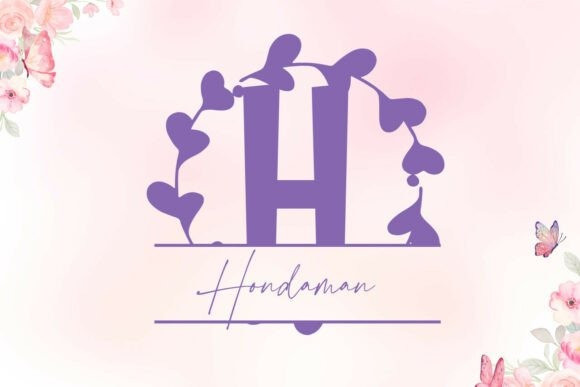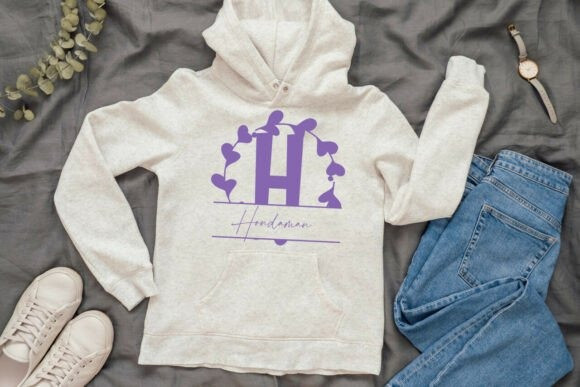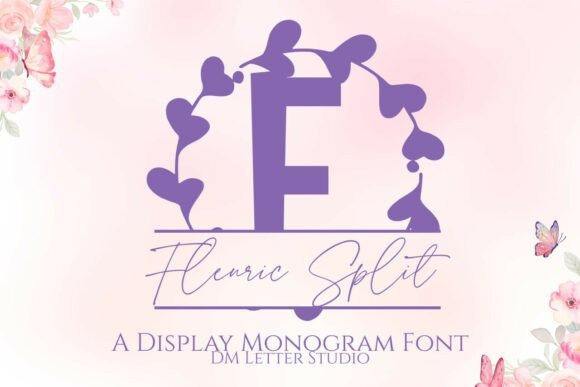
Fleuric Split Monogram Font
Fleuric Split Monogram Font is an enchanting display monogram font designed to add a romantic, handcrafted touch to your personalized creations.
The typeface’s key feature is the bold, solid, split-style uppercase letter which is perfectly bisected by a stylish line, allowing for personalized text, names, or dates to be inserted directly into the design. The surrounding heart-shaped floral wreath is integrated into the letter’s design, lending an irresistible, feminine, and highly decorative aesthetic.
This font is a dream for crafters and designers specializing in personalization. Its dual-style format—the split monogram for a focal point and the elegant script for complementing text—makes it perfect for creating custom decals, embroidered designs, wedding decor, personalized gifts, stylish tumblers, and charming nursery art. The delicate floral and butterfly accents in the preview highlight its suitability for projects demanding a sweet, girly, and custom-made feel, ensuring every project feels uniquely special.
Set a single initial and place the family name inside the split. Then try a couple of names, venue names, or words like “Home” and “Welcome.” Since proportions favor clarity, designs scale from wall art to tiny tags. As a result, Fleuric Split Monogram Font works perfectly for Cricut, Glowforge, laser projects, and vinyl.
Next, just change the letter and the name, then export. Finally, batch your designs for weddings, housewarmings, and holiday markets to save time and boost output.
Keep the main initial large to showcase the botanical flair. Place the split line at the center or slightly low for balance. Meanwhile, choose a simple secondary font for the name inside the split. Because Fleuric feels airy, metallic accents and wood textures add instant value. Try champagne with charcoal, blush with espresso, or navy with gold. However, keep names short so everything remains readable at small sizes.
It helps you craft custom gifts, signs, and décor in minutes. Also, it keeps your brand style consistent across many product types. Therefore, one font can anchor a full line of name-ready pieces.